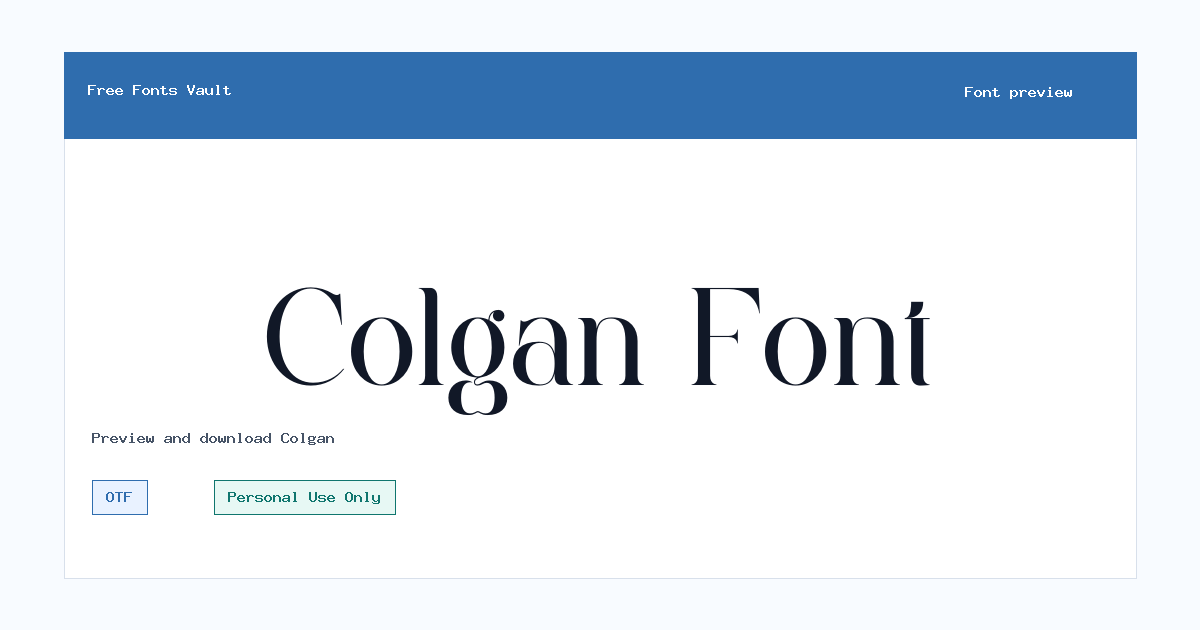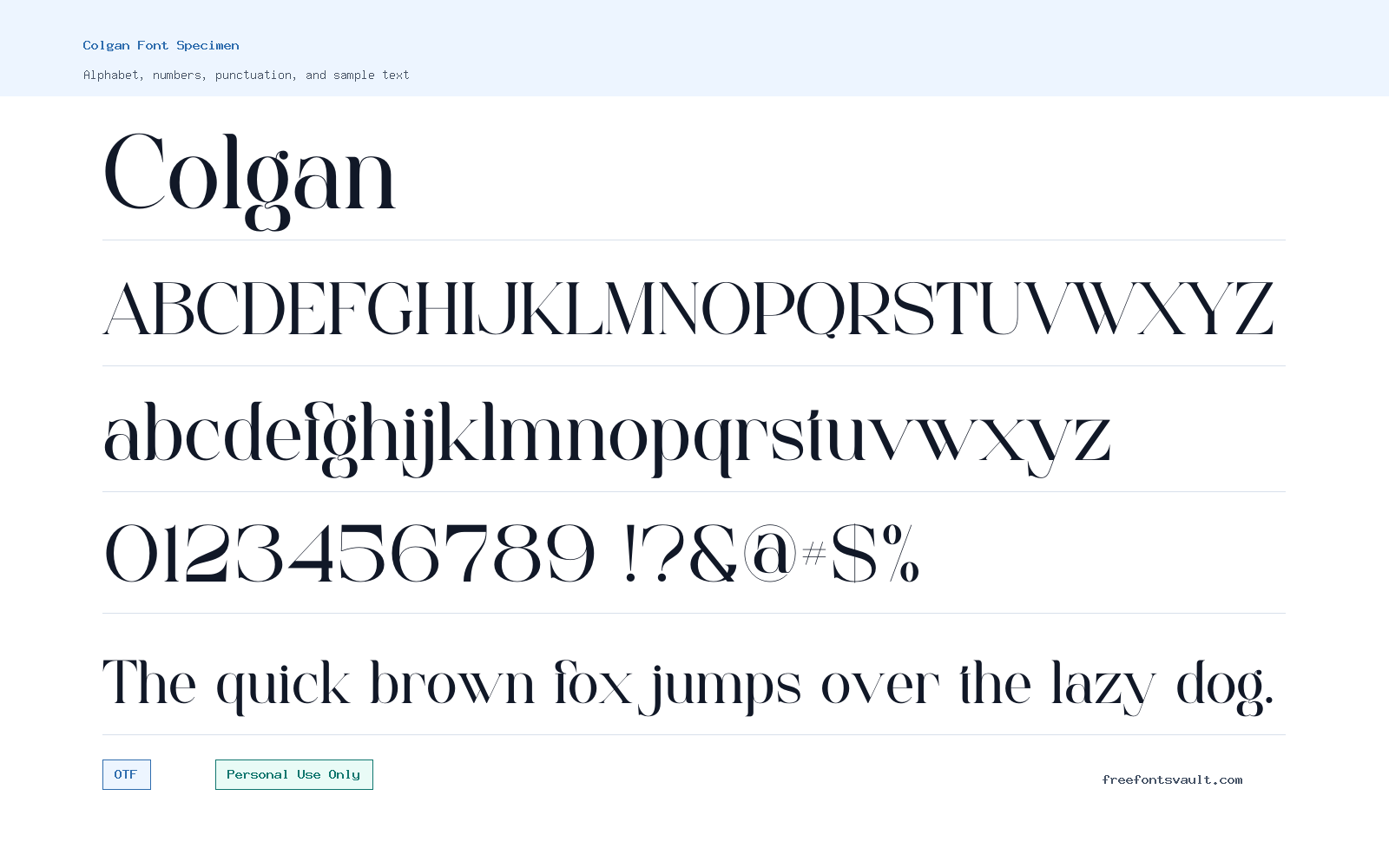
Colgan
- Designer Biham Santoso
Colgan is a high-contrast serif display font with a refined, fashion-style look. It works best when you need a strong title, logo concept, poster headline, or elegant short text rather than long body copy.
About Colgan Font
Colgan has thin hairlines, heavier vertical strokes, and sharp serif details that give it a polished editorial feel. In the preview, the uppercase letters look especially strong for headlines, while the lowercase has several distinctive shapes, including a decorative double-storey g and narrow, graceful curves. The contrast between thick and thin strokes is the main part of its personality, so Colgan is most effective at larger sizes where those details can stay crisp.
Use Colgan when the design needs a clean serif with a more stylish display voice. It can suit logo drafts, fashion-inspired branding concepts, beauty packaging mockups, invitations, social graphics, quote cards, magazine-style covers, and poster titles. Because the hairlines are very fine, test it carefully on dark backgrounds, small mobile graphics, and low-resolution exports. At small sizes, some strokes may become too delicate, so pair it with a simpler text face for captions, descriptions, menus, and longer reading.
- High-contrast serif design with thin hairlines and strong vertical strokes
- Includes basic English letters, numbers, and standard punctuation
- Best suited to display use, especially titles, logos, posters, and short phrases
- Distinctive lowercase forms that can add character to brand and editorial layouts
- Logo concepts and wordmarks for personal projects
- Poster headlines and magazine-style cover text
- Fashion, beauty, lifestyle, and boutique-style mockups
- Invitation titles, quote graphics, and social media headers
- Web design mockups where the font is used for headings rather than paragraphs
The font names Biham Santoso as the designer. No foundry information is confirmed.
For the best result, try Colgan in short text first: one-word logos, two-line poster titles, product-name mockups, or large website hero headings. Give the letters enough spacing and contrast so the thin strokes do not disappear. For pairing, choose a quiet sans serif or a readable text serif for supporting copy. Avoid pairing it with another highly decorative display font, because the design already has enough visual detail to lead the layout.
What kind of font is Colgan?
Colgan is a high-contrast serif display font. It has fine hairlines, sharp serif details, and a refined look that fits headings and short design text.
Is Colgan good for body text?
Colgan is better for display text than long reading. Its thin strokes and high contrast look best at larger sizes, so use a simpler companion font for paragraphs.